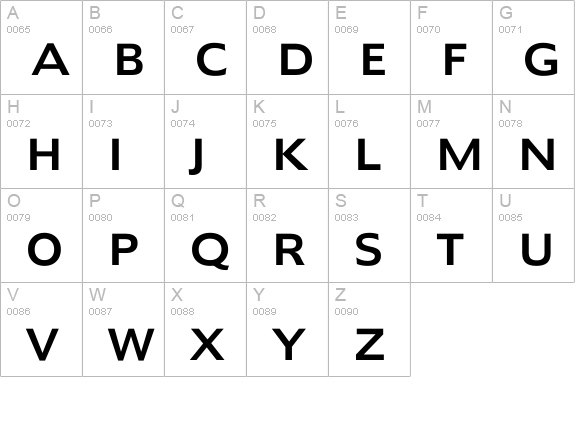
Mayfarlong Font Details
Introducing Mayfarlong font, a beautifully crafted typeface that exudes elegance and sophistication. With its sleek lines and stylish curves, this font is perfect for adding a touch of class to your designs. Whether you're working on a branding project, creating invitations, or designing a website, Mayfarlong font will make your text stand out. What's even better is that Mayfarlong font is available for free download at FontsMarket.com. Yes, you read that right - this stunning font can be yours at no cost! So why wait? Elevate your design projects with Mayfarlong font today and make a lasting impression.